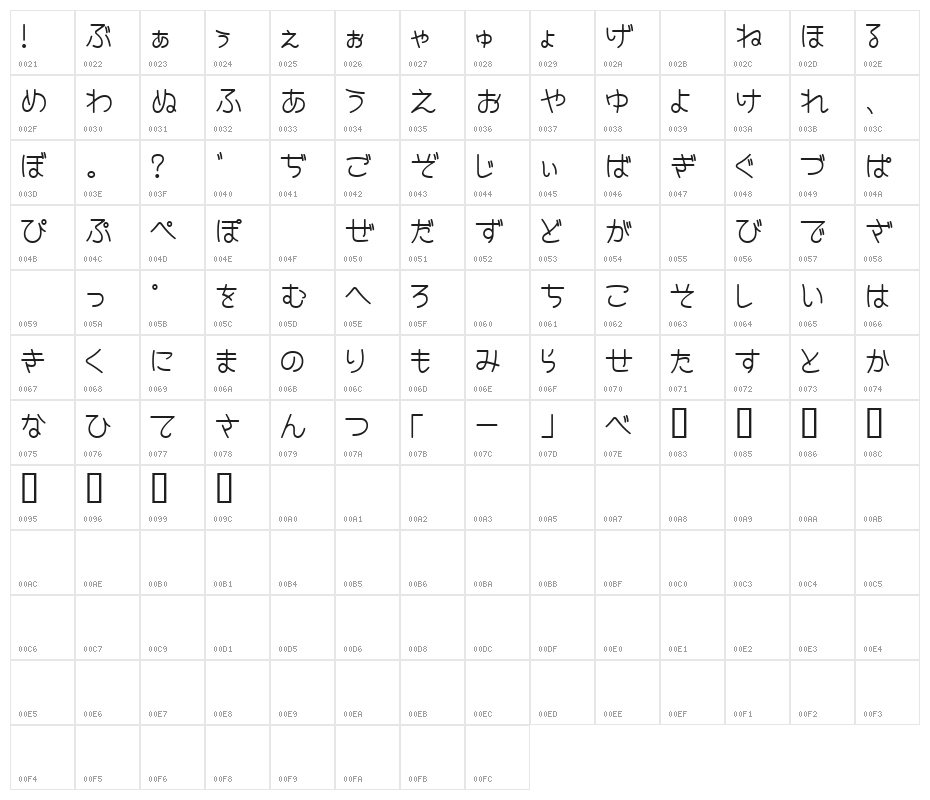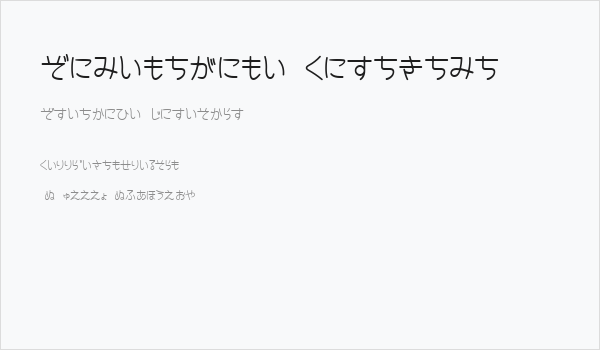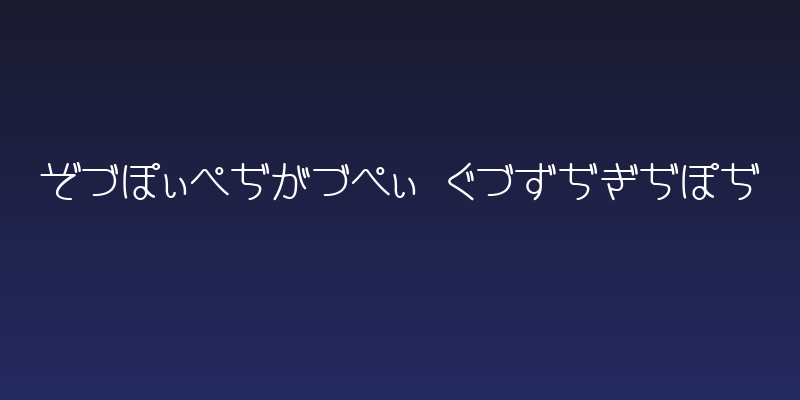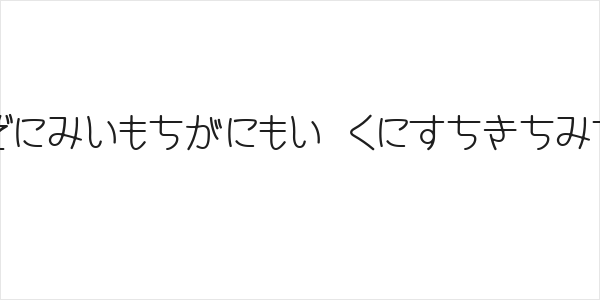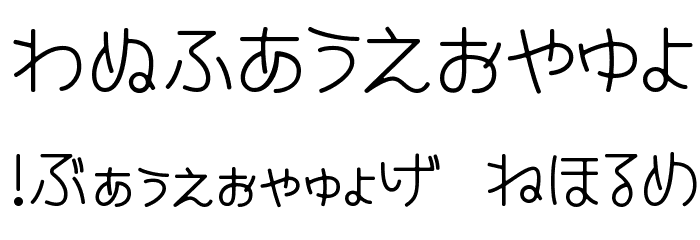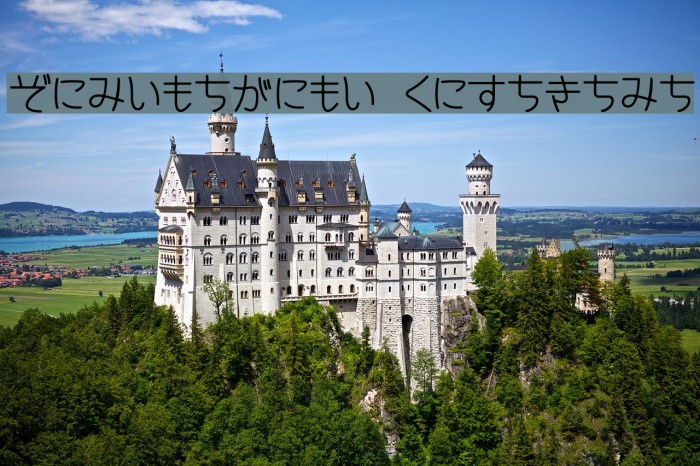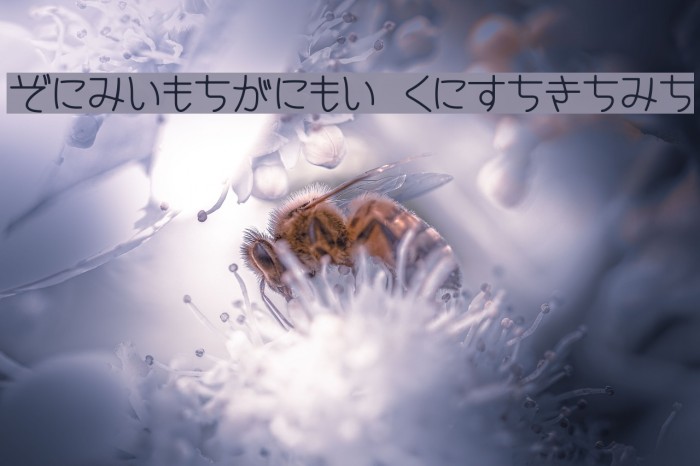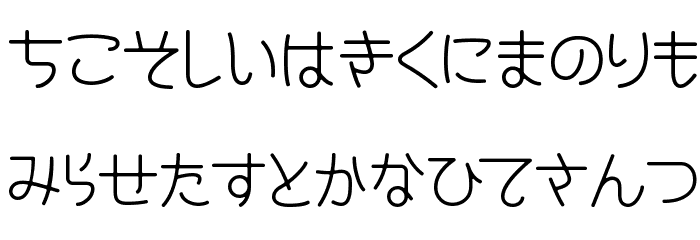
CinemaTime hiragana Font
CinemaTime hiragana Description
This font features a clean and modern design with smooth, rounded strokes that give it a friendly and approachable appearance. The characters are evenly spaced, providing excellent readability. The style is consistent throughout, with a uniform stroke width that maintains a balanced and harmonious look. The simplicity of the design makes it versatile for various applications, while the subtle curves add a touch of elegance. This font is particularly well-suited for digital content, educational materials, and user interfaces where clarity and accessibility are paramount.
| Use Case | Headlines, Body text, Digital content |
| Proposed Projects | Ideal for educational materials, digital content, user interfaces, and children's books. |